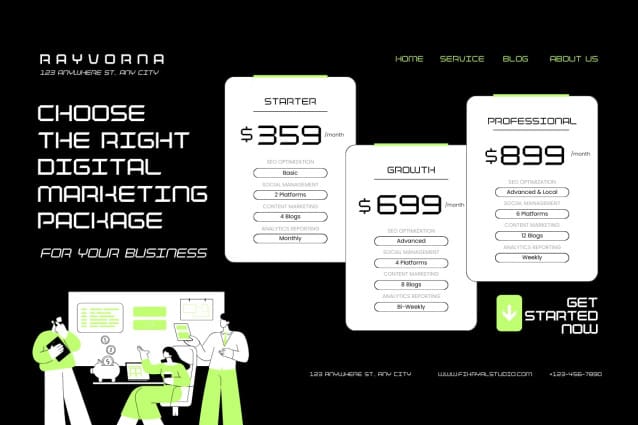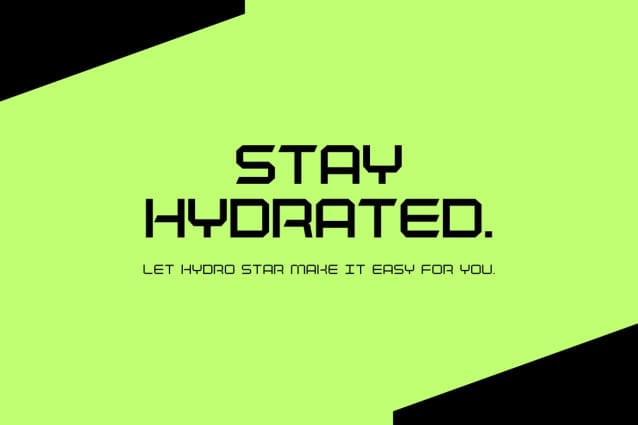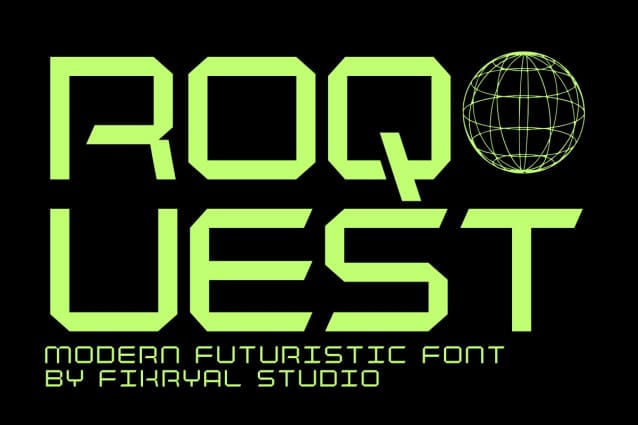
Roquest Futuristic Font
Roquest Futuristic Font – Modern Futuristic Font is a sleek and powerful typeface designed to make a bold impression. With six versatile weights—Light, Light Italic, Regular, Italic, Bold, and Bold Italic—this all-caps font effortlessly blends futuristic aesthetics with a modern touch. Ideal for tech-inspired designs, cutting-edge branding, and eye-catching titles, Roquest brings a unique, modern futuristic character to any project, enhancing readability and style in digital and print mediums alike.